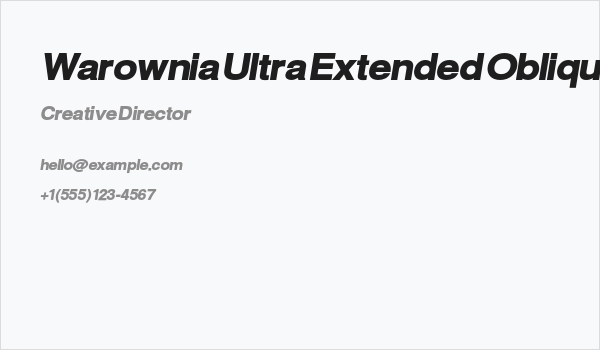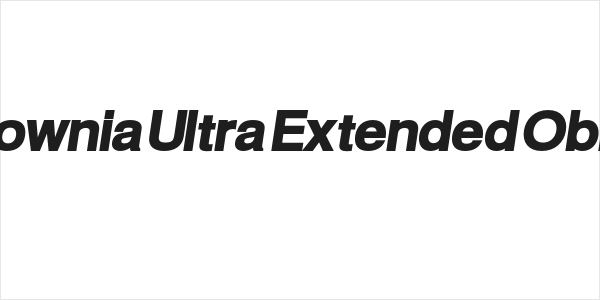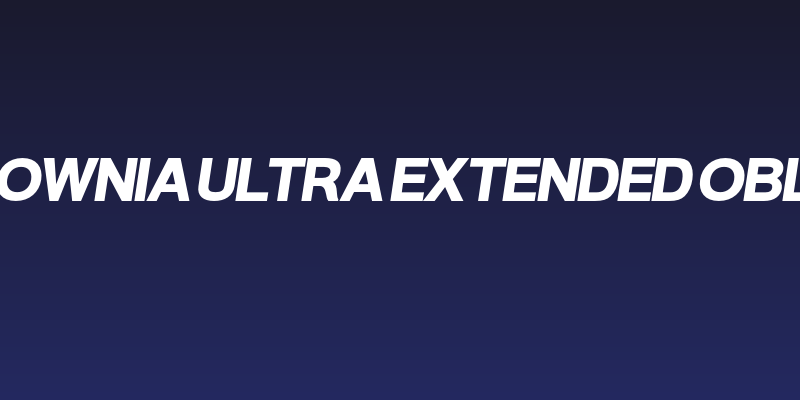
Warownia Ultra Extended Oblique Font
Warownia Ultra Extended Oblique Description
This font features a bold and dynamic design with an ultra-extended width, giving it a strong and commanding presence. The oblique style adds a sense of motion and modernity, making it ideal for attention-grabbing headlines and impactful designs. The characters are well-spaced, ensuring readability while maintaining a cohesive look. The uppercase and lowercase letters are consistent in style, with numerals and special characters complementing the overall aesthetic. Its bold weight and expanded width make it suitable for projects that require a striking and contemporary appearance.
Proposed ProjectsIdeal for headlines, posters, branding, and advertising where a strong visual impact is needed.